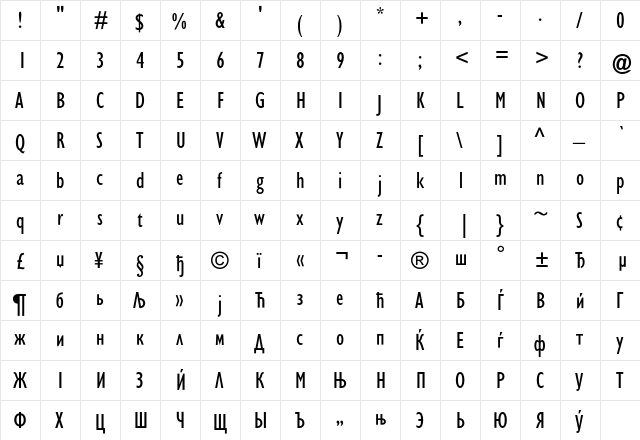
GillSans SA-Condensed Regular
Design Context for GillSans SA-Condensed Typeface
GillSans SA-Condensed takes a measured approach to typography — its balanced proportions and neutral character make it a reliable workhorse for both digital and print work. The condensed width makes it efficient for tight spaces without sacrificing legibility.